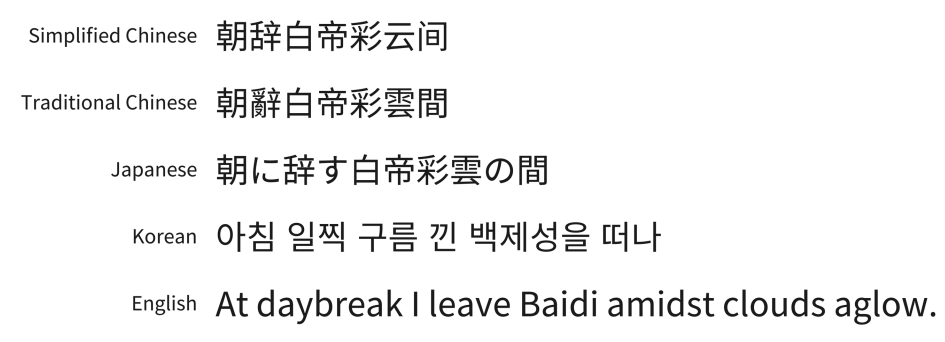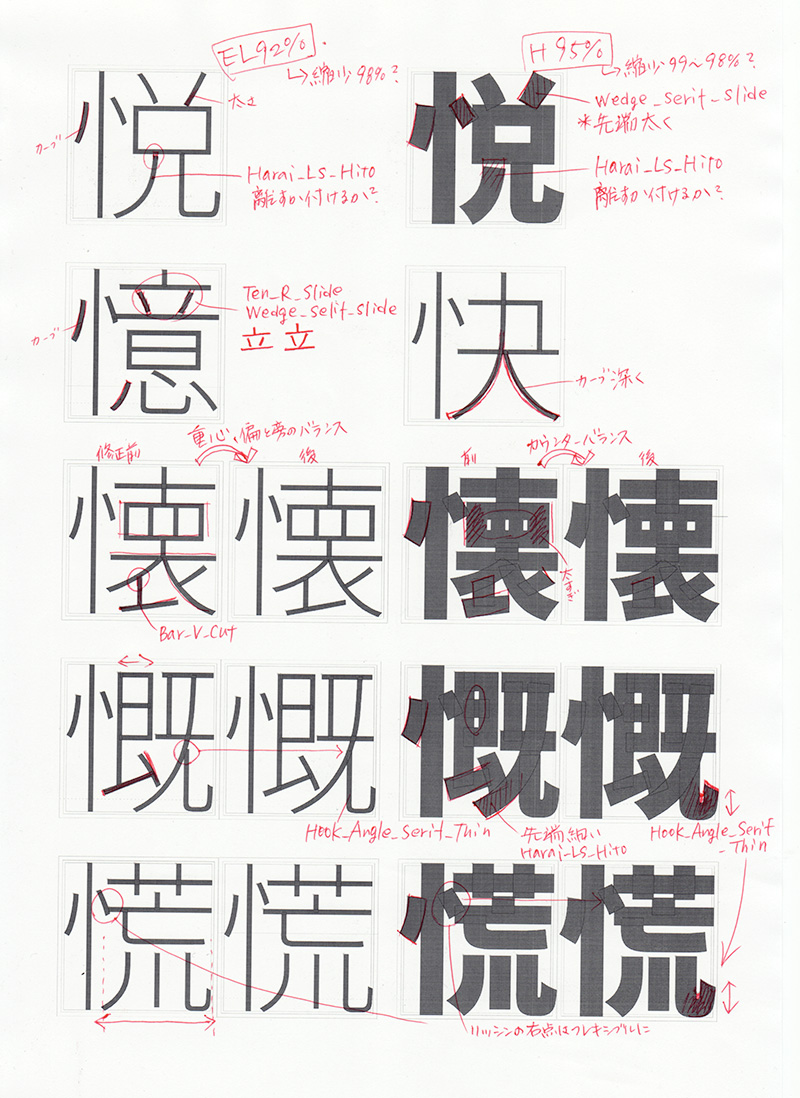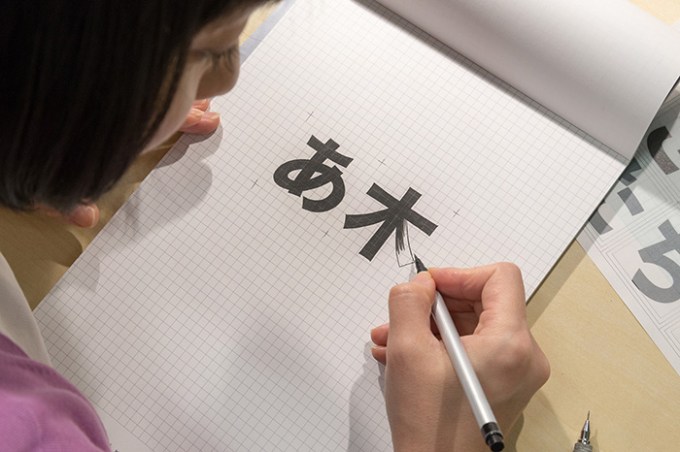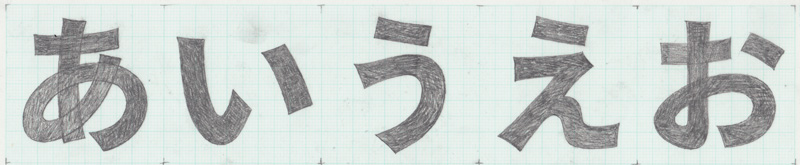
Adobe and Google today announced the launch of a new open-source font for Chinese, Japanese and Korean (CJK) languages that covers 65,535 glyphs, making it one — if not the — largest font to cover these languages. The font, which was optimized for both print and screen, is now available for free through Google Fonts and through Adobe’s Typekit, where it is included in the free tier.
For reasons surely only the respective companies’ marketing departments understand, Adobe will call the font Source Han Sans while Google will release its own version of the font under the name Noto Sans CJK. It will also be available through Adobe’s SourceForge and GitHub repositories and the company will make subsets of the font available to those who only need support for a specific language.
By default, the font supports Japanese, Traditional Chinese (including Taiwan and Hong Kong SAR), Simplified Chinese and Korean (with hangul syllables), as well as Greek, Latin and Cyrillic alphabets.
Having Adobe and Google work together on an open-source font may seem somewhat unusual. Adobe’s principal product manager for type Caleb Belohlavek told me last week that the two companies actually started talking about this project about four years ago. Building a pan-CJK font was something Adobe had been wanting to do for a while and something Google thought would be useful for its own products and its developer community. For Google, this had to be an open-source project, and while that wasn’t always in the nature of Adobe, the company had already started working on its open source font at the time. Eventually, the two companies decided to pool their resources to get this project off the ground.
Belohlavek tells me that once the project got off the ground, Adobe’s Tokyo-based Senior Designer Ryoko Nishizuka started working on the overall design of the font, which Belohlavek described to me as “simple in style will retain the elegance of a traditional sans design for Asian characters.” This, apparently, was quite a daunting task, given that many of these glyphs may have up to four different regional variations. Adobe tells me that the other issues the designers faced was to ensure that the font will harmonize well with Google’s existing Roboto and Noto Sans families and Adobe’s own Source Sans Latin glyphs.
Adobe handled most of the initial design, and Google contributed to the project’s direction and provided the funding for much of the second part of the project, which involved shipping the initial design to partners in Japan, China and Korea to finalize the fonts. While each of these languages is based on historical Chinese forms, they have all morphed into different systems over time, with additional (often subtle) regional variants, all of which have to be accounted for in a font like this.
In total, about 100 people worked on this project according to Adobe. The full font weighs in at 19 megabytes and offers seven weights.